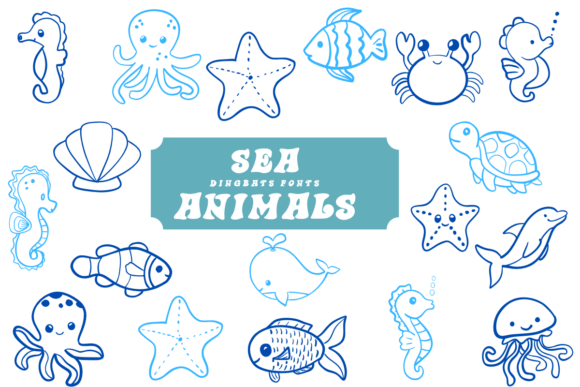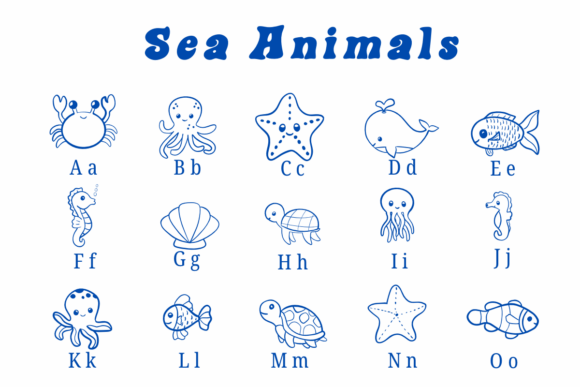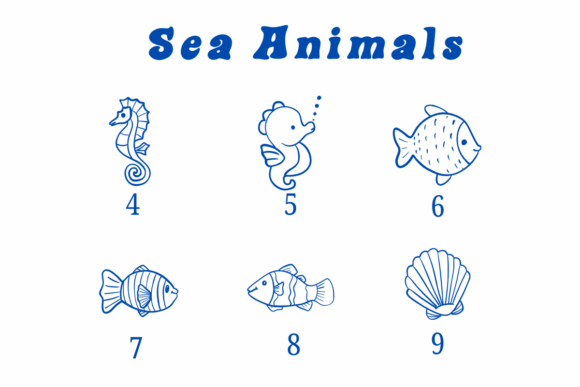
Sea Animals Font
About the Sea Animals Font
Explore the possibilities with Sea Animals Font, a font that offers both beauty and functionality. Sea Animals is a dingbats font with an aquatic theme. This font can enhance your creative projects such as wedding invitations, DIY, crafts, decorations, logos, and many other creative ideas.
Sea Animals Font Usage Examples
Sea Animals Font Example